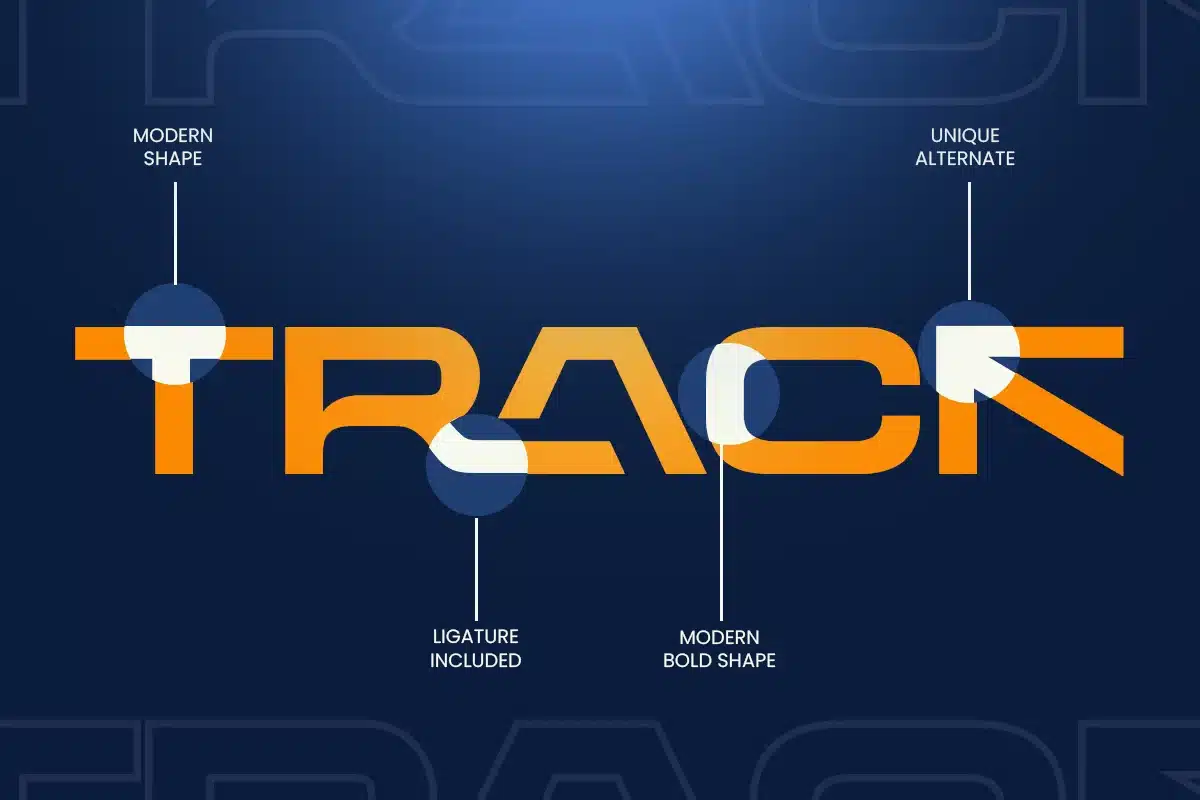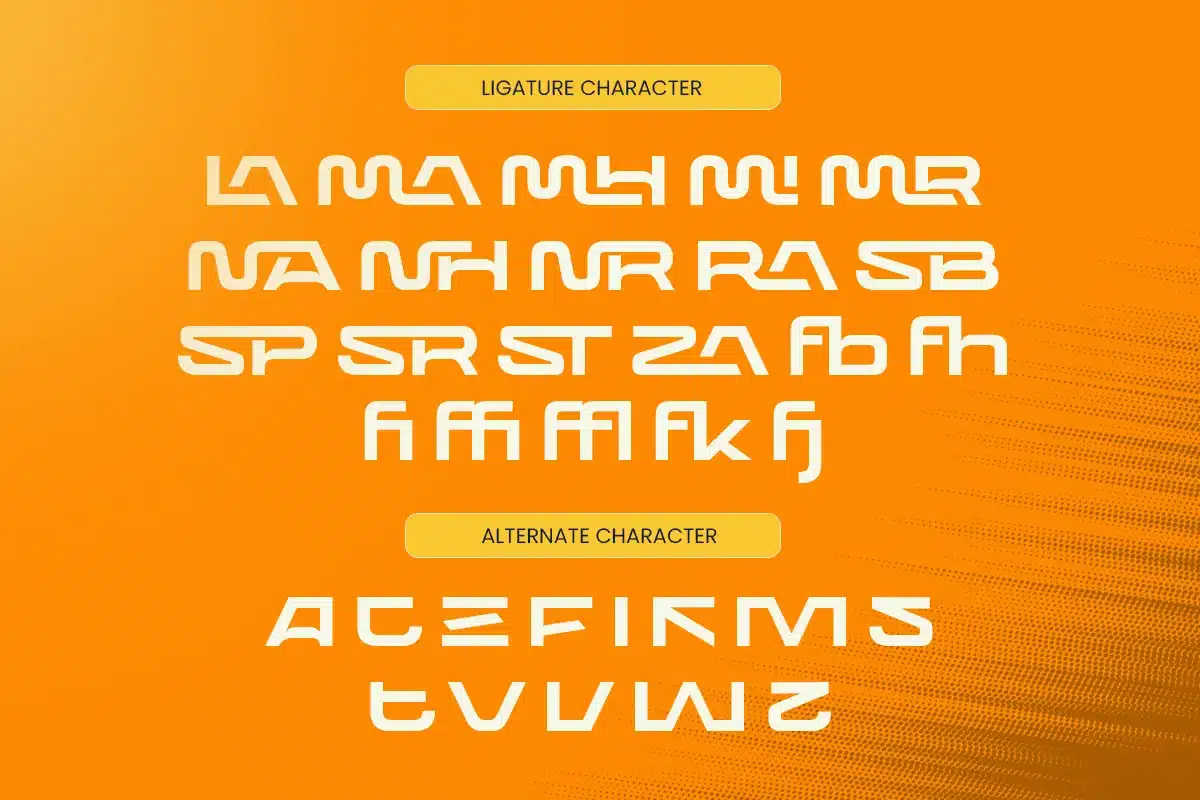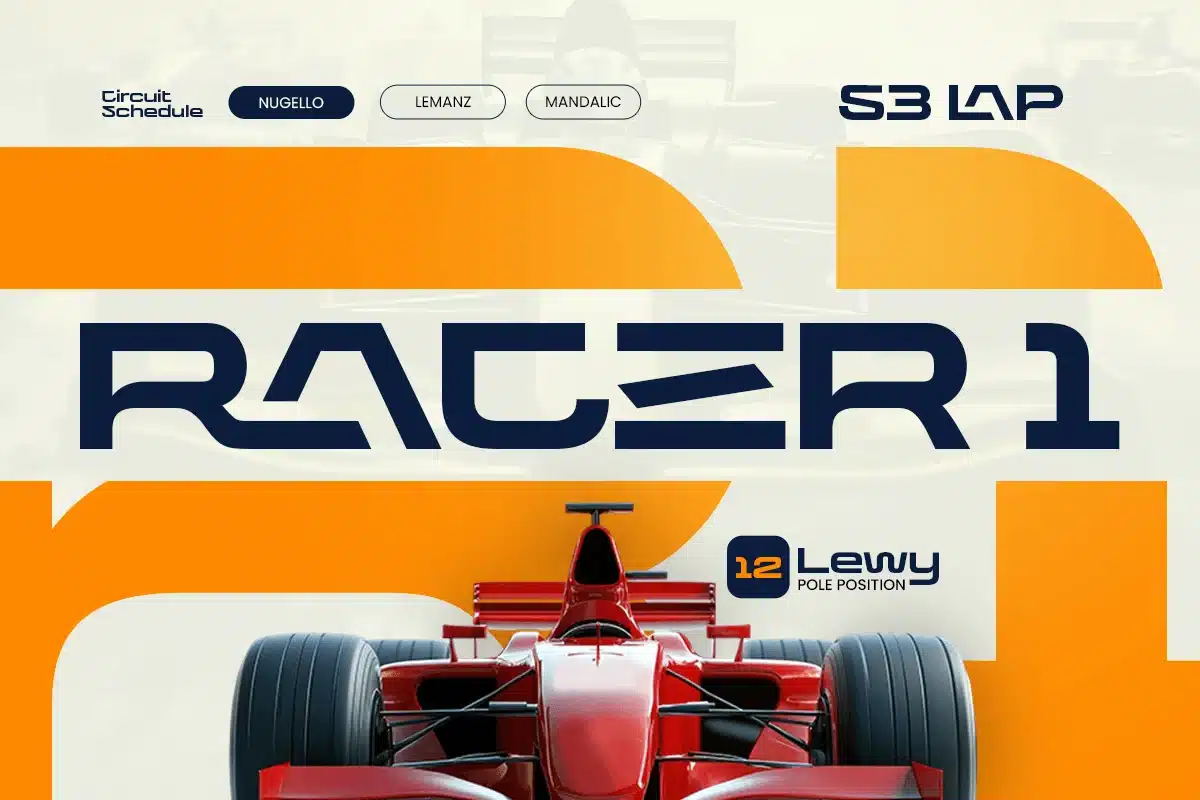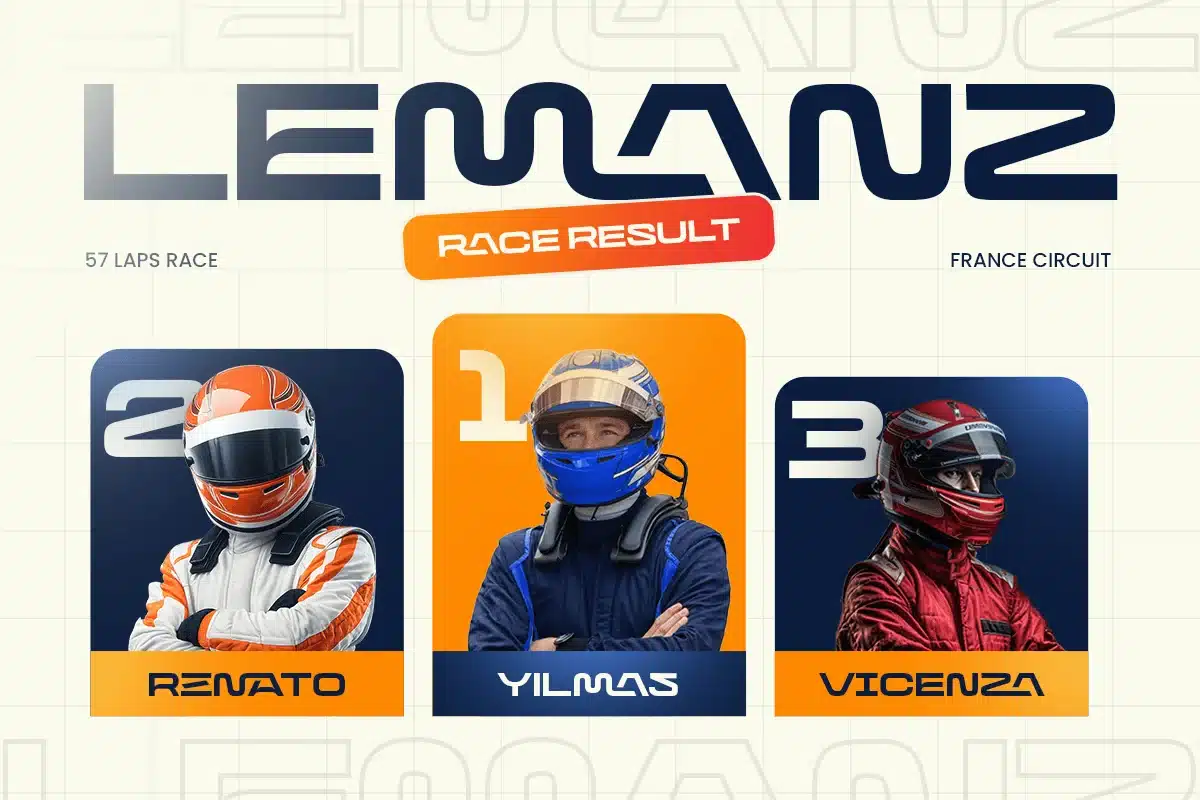
Wech – Unique Branding Techno Sport Font
Wech – Unique Branding Techno Sport Font is a high-energy display typeface designed to combine futuristic techno aesthetics with dynamic sports performance. Inspired by racing visuals, digital technology, and competitive branding, Wech is built for projects that demand motion, power, and bold identity.
With its sharp angles, dynamic structure, and distinctive letterforms, Wech delivers a strong visual impact while maintaining readability in large-scale applications. The design emphasizes speed and precision, making it ideal for modern sport and techno-driven branding.
Wech Font Features
- Complete character set including uppercase, lowercase, numerals, symbols, and punctuation
- Unique techno sport letterforms optimized for branding and headline use
- OpenType features included to support dynamic display typography
Wech is Perfect For
- Sport branding and team identity design
- Racing, automotive, and performance visuals
- Esports and gaming branding
- Futuristic technology campaigns
- Posters and high-impact promotional graphics
- Bold headline and energetic design projects
Whether you are creating a sport identity, designing a racing visual system, or building a futuristic branding concept, Wech helps your design communicate speed, strength, and modern technological energy.